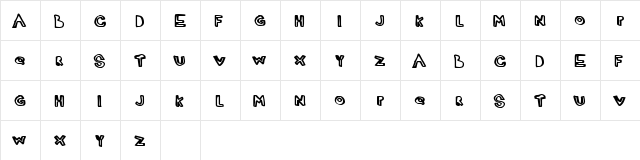
JustMarker Regular
| Foundry | Xerographer Fonts |
| Designer | Max Infeld |
Design Context for JustMarker Typeface
JustMarker is a composed and adaptable typeface that performs quietly and consistently across a wide range of design contexts.